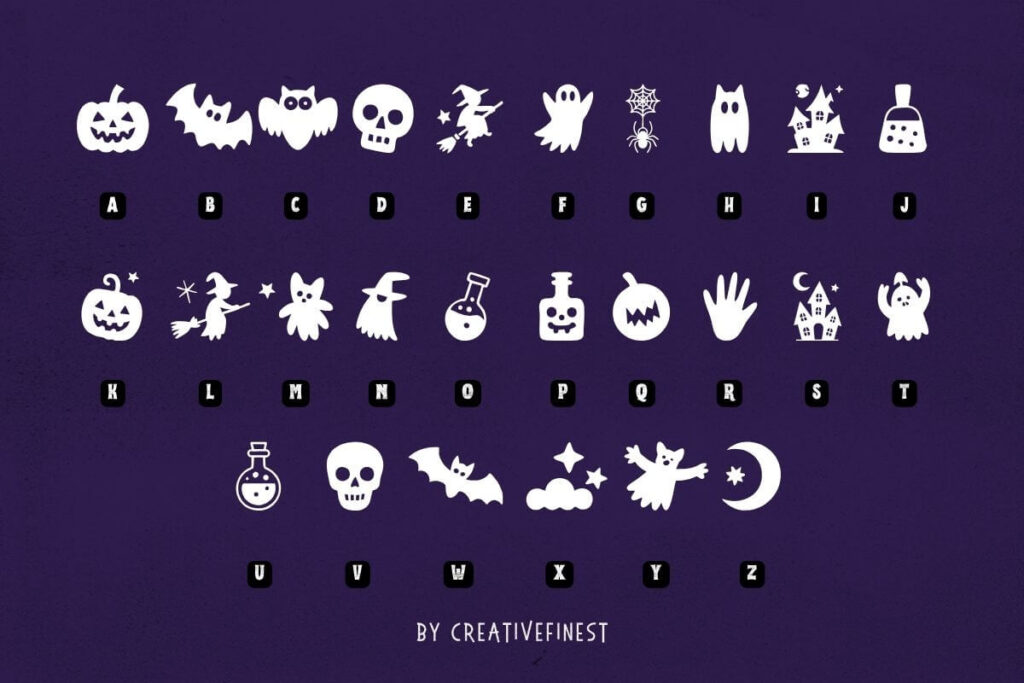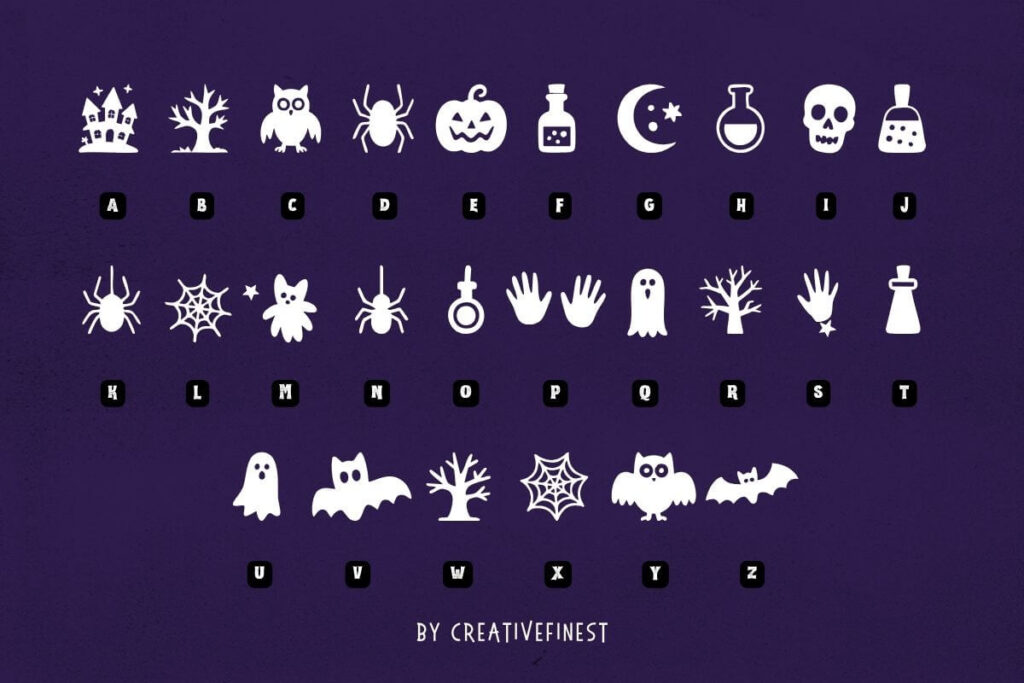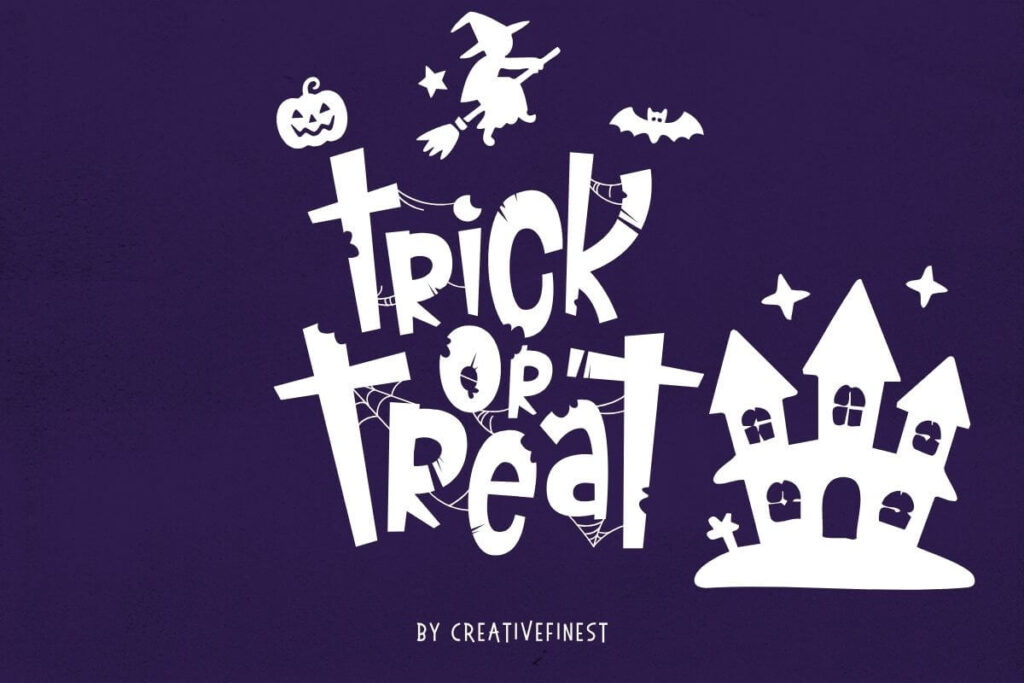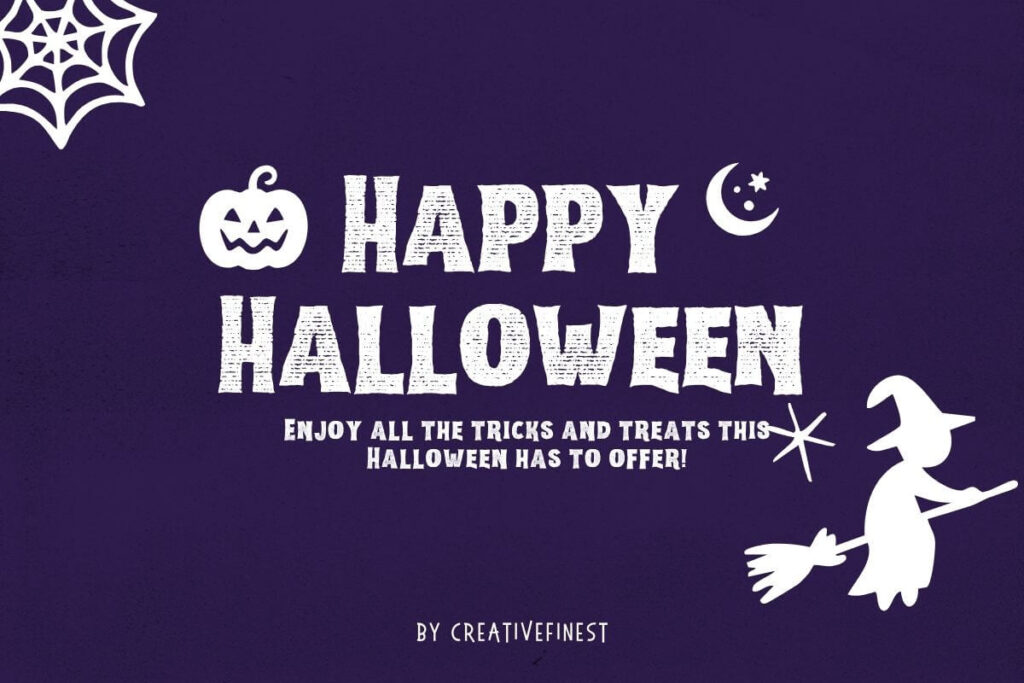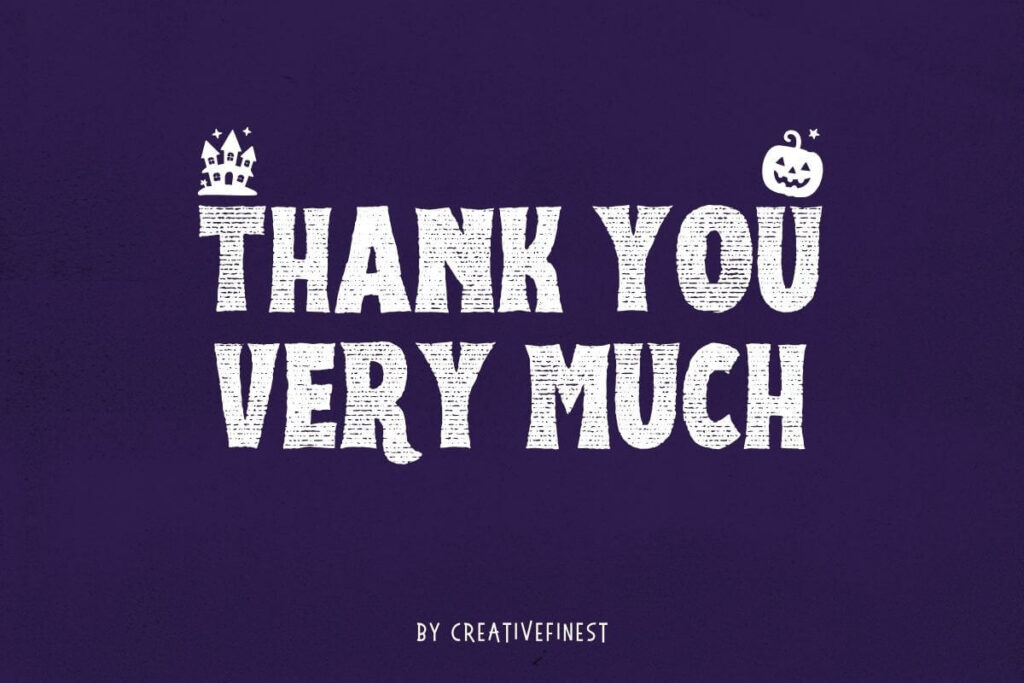
CAF Halloween Doodle
CAF Halloween Doodle Font is your go-to set for adding a playful spooky vibe to any project! This collection features fun, hand-drawn Halloween doodles—think pumpkins, ghosts, bats, witches, haunted houses, and more—all in a cute and casual style.
Whether crafting invitations, decorating printables, or making social media posts, these quirky designs instantly bring that Halloween mood to life.